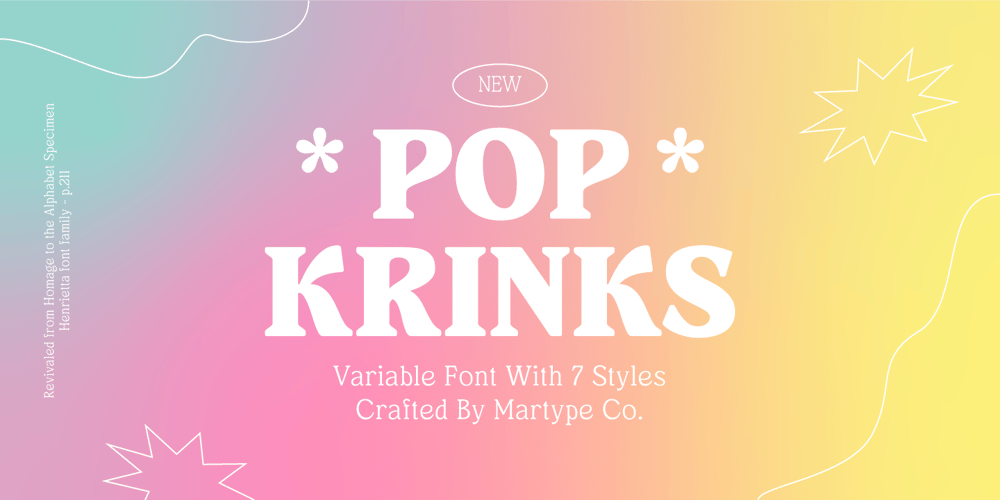
Pop Krinks Font Family was designed by Umar Al Farouq and published by Martype co. Pop Krinks contains 7 styles and family package options. Introducing Pop Krinks serif display. A new brand serif font family, comes with 7 styles to make it more versatile and stylish. Perfect and suitable for Branding Design, Logotype, Wedding Invitation, Headline, Posters, Business Card and etc. Inspired by henrietta typeface specimen in homage photo the alphabet and born in new modern style and craft.Multilingual Support support many different languages 60+Afrikaans, Albanian, ,Basque, Bemba, Bena, Breton, Catalan, Chiga, Cornish, Danish, Dutch, English, Estonian, Faroese, Filipino, Finnish, French, Friulian, Galician, German, Gusii, Indonesian, Irish, Italian, Kabuverdianu, Kalenjin, Kinyarwanda, Luo, Luxembourgish, Luyia, Machame, Makhuwa, Meetto, Makonde, Malagasy, Manx, Morisyen, North, Ndebele, Norwegian, Bokmål, Norwegian, Nynorsk, Nyankole, Oromo, Portuguese, Quechua, Romansh, Rombo, Rundi, Rwa, Samburu, Sango, Sangu, Scottish, Gaelic, Sena, Shambala, Shona, Soga, Somali, Spanish, Swahili, Swedish, Swiss, ,German, Taita, Teso, Uzbek (Latin), Volapük, VunjoZuluThank You, Happy Design! 🙂